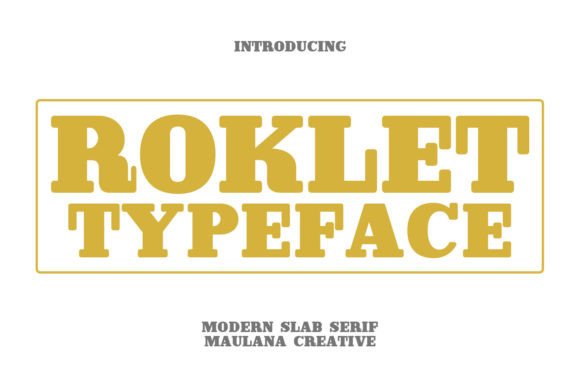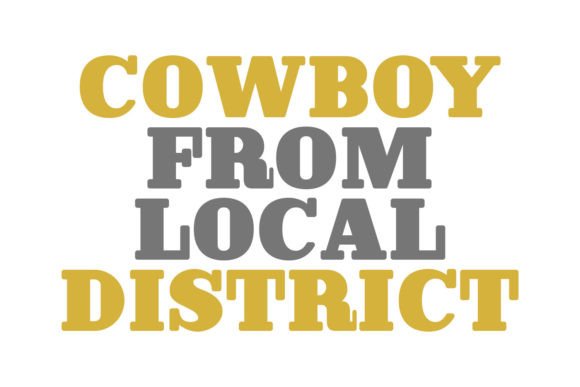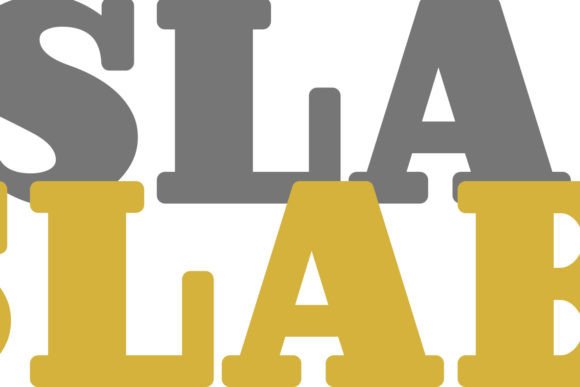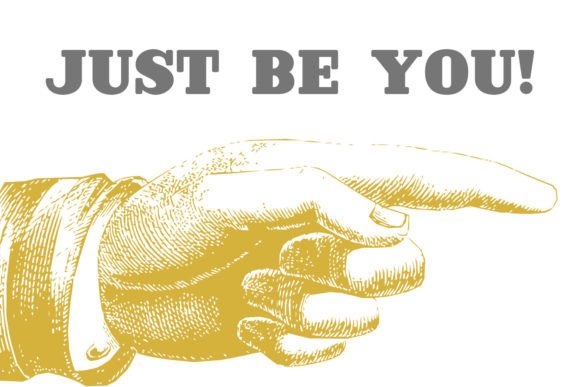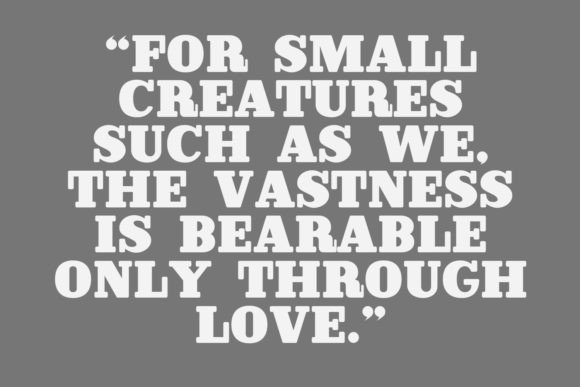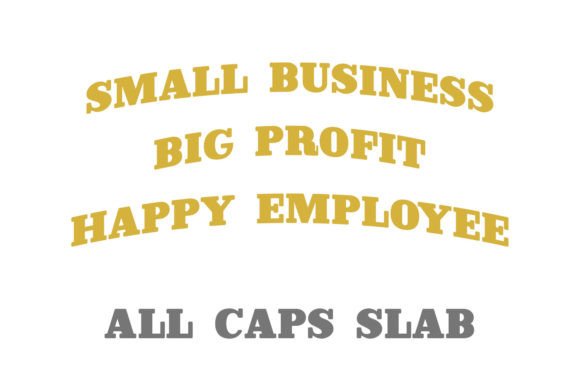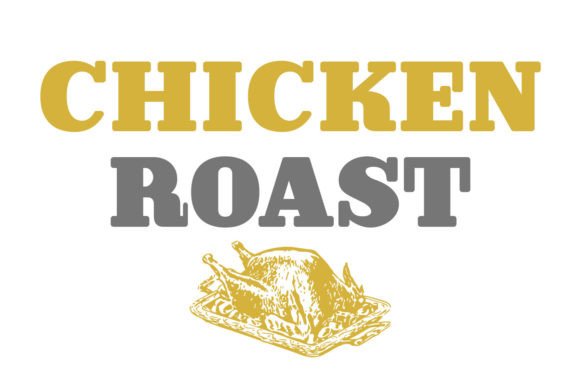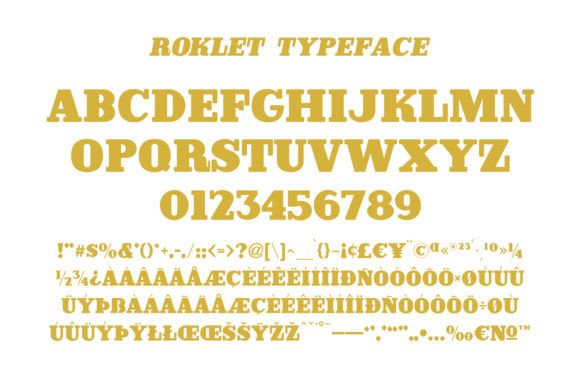
Roklet
Roklet Fonts
Roklet: A Stylish and Bold Semi Slab Serif Font
Roklet is a stylish and bold semi slab serif font that serves as an incredible asset to any font library. This versatile typeface has the potential to elevate various creative projects with its distinctive character.
Key Features of Roklet
• Stylish Design: Offers refined semi slab letterforms.
• Bold Character: Brings commanding presence to designs.
• Versatile Appeal: Adapts well to numerous contexts.
• Enhanced Impact: Elevates projects to new heights.
When using Roklet in your designs, keep these tips in mind:
• Try it for headlines or display text to showcase its bold style.
• Use its stylish character for sophisticated projects.
• Let its versatility enhance various design themes.
• Take advantage of its ability to elevate designs.
To sum up, Roklet is an excellent choice for designers seeking a stylish and bold semi slab serif font. Its versatility makes it perfect for enhancing any design project. Whether you’re creating sophisticated layouts or developing creative projects, Roklet offers the perfect blend of style and boldness.
Furthermore, Roklet’s distinctive design allows it to shine in contexts where both impact and refinement are key. The font can elevate your projects with its stylish character while maintaining a bold presence that commands attention.
In conclusion, Roklet truly captures the essence of stylish design in semi slab serif typography. Its ability to enhance various applications shows how well it can serve creative needs. Therefore, for those wanting to add a touch of bold sophistication to their work, Roklet can transform any design with its distinctive style. Ultimately, it’s perfect for designers aiming to elevate their projects with bold, stylish impact.